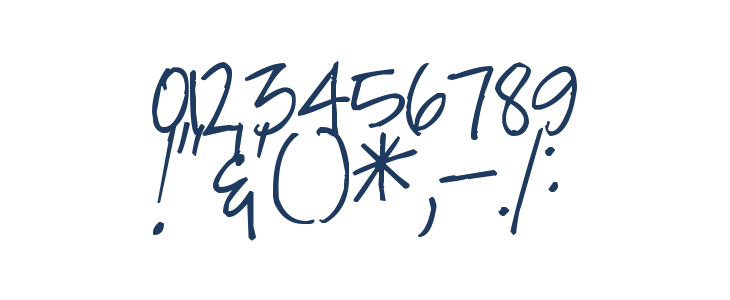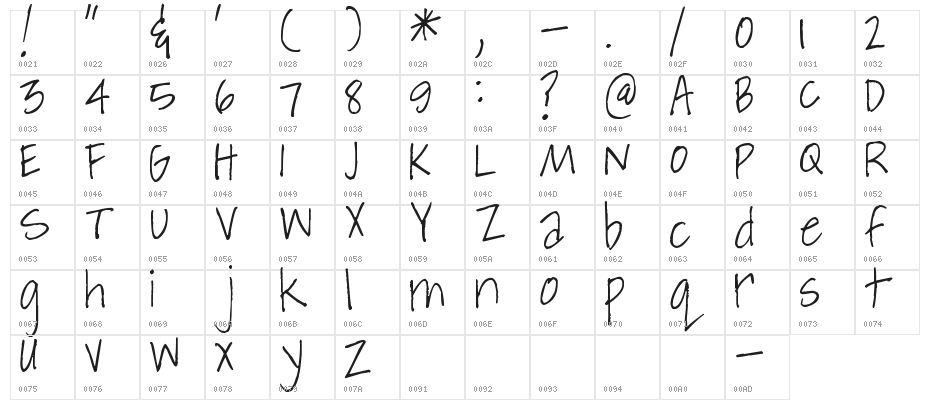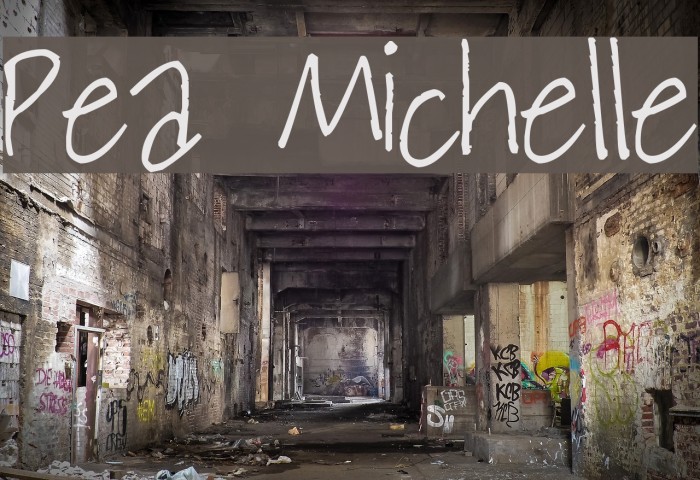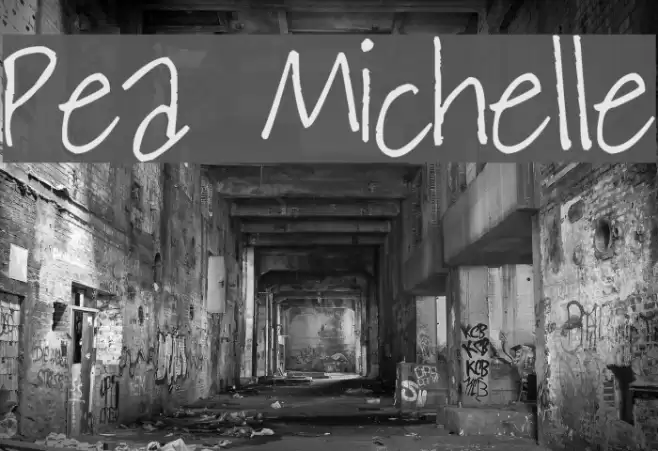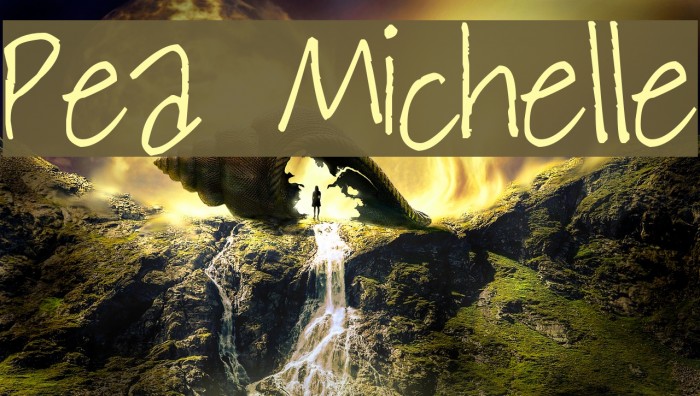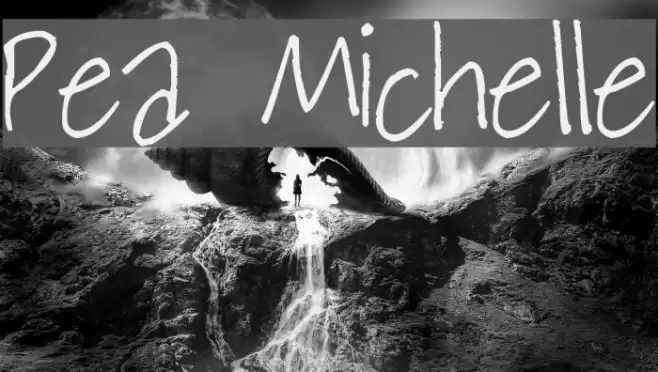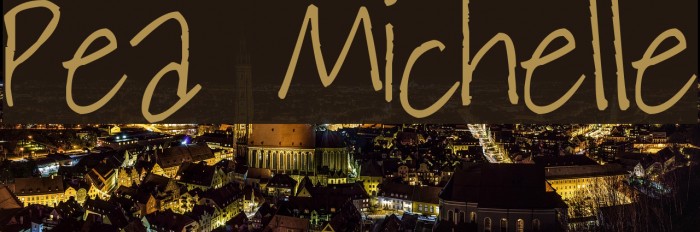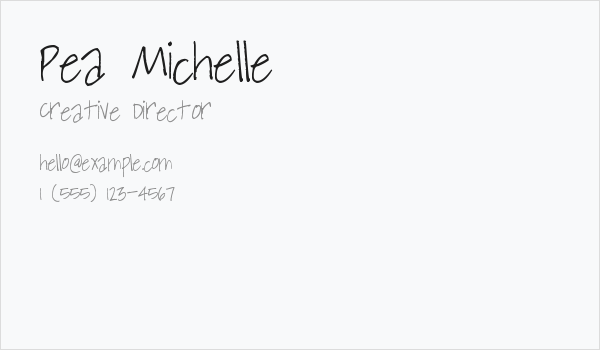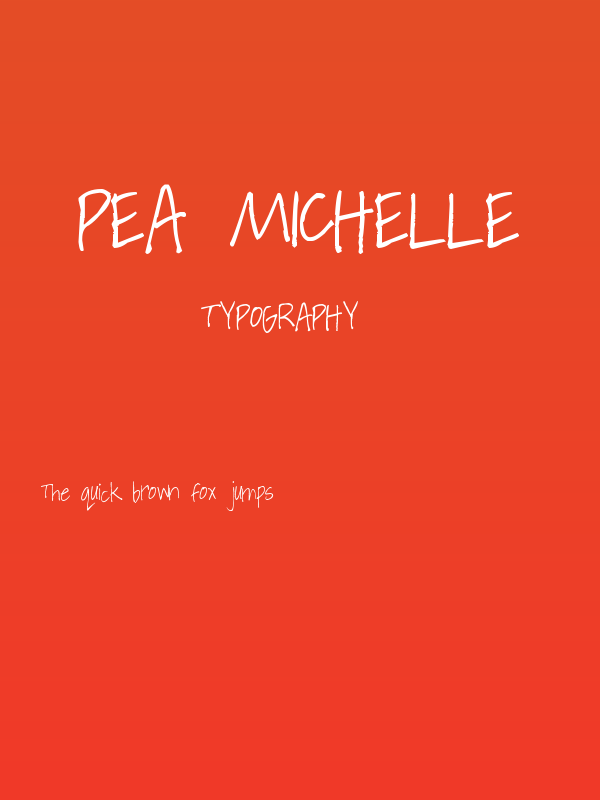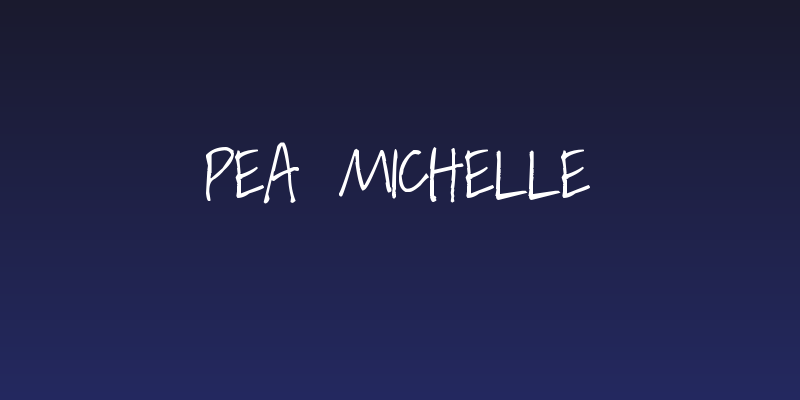
Pea Michelle Font
Pea Michelle Description
This font features a casual, handwritten style with a playful and informal appearance. The letters are slightly slanted, giving it a dynamic and lively feel. The strokes are uneven, mimicking the natural flow of handwriting, which adds a personal touch to the text. The uppercase and lowercase letters are distinct, with a noticeable difference in size, enhancing readability. Numbers and special characters maintain the same handwritten aesthetic, ensuring consistency across all characters. This font is perfect for projects that require a personal, friendly, and approachable look.